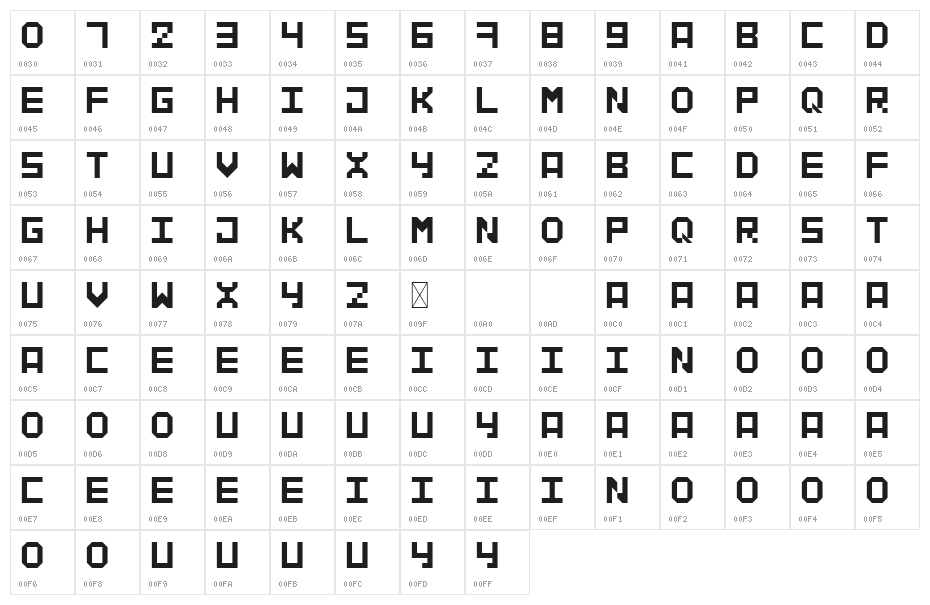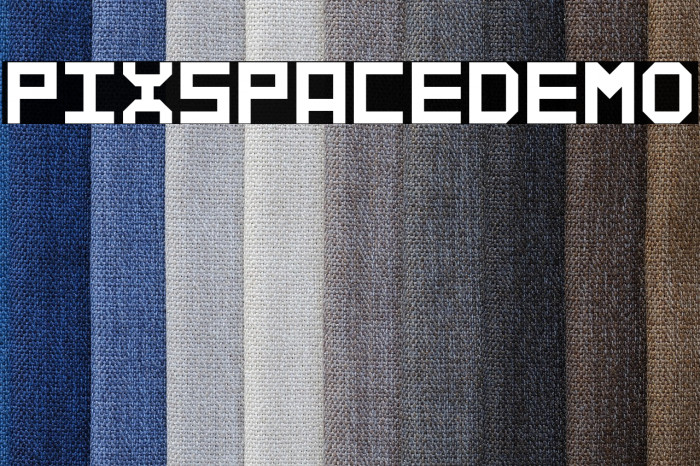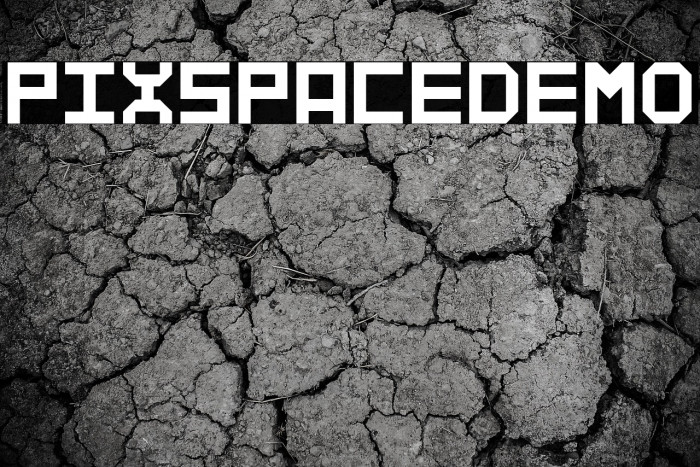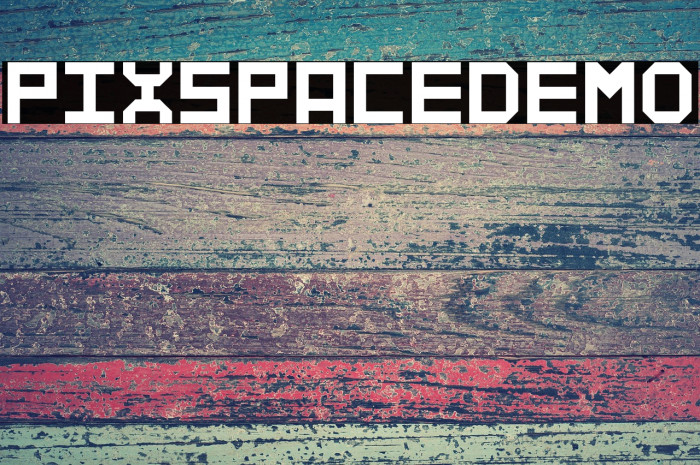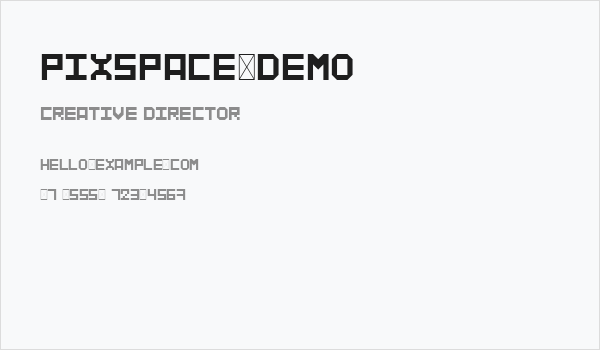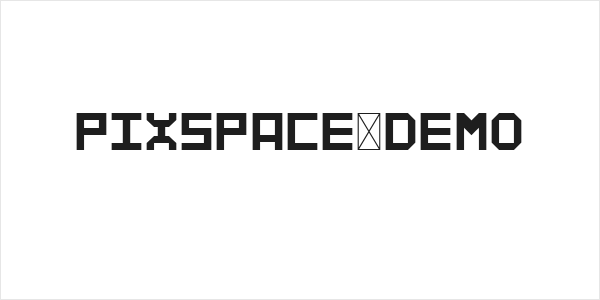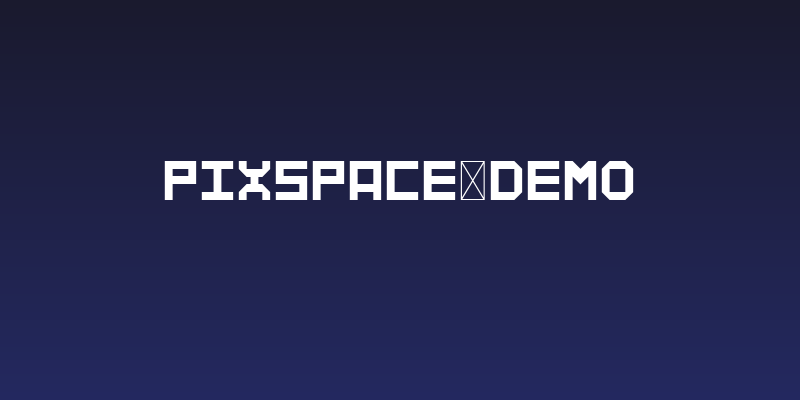
PIXSPACE-DEMO Font
PIXSPACE-DEMO Description
This font features a bold, geometric design with a distinctly modern and digital aesthetic. Each character is constructed with sharp angles and straight lines, giving it a pixelated appearance reminiscent of early digital displays or video games. The uniformity in stroke width across all characters contributes to a cohesive and structured look. Its blocky nature makes it highly legible at various sizes, though it is particularly striking in larger formats. The font's unique style is both futuristic and retro, making it versatile for creative projects that aim to capture a tech-savvy or nostalgic vibe.
| Proposed Projects | Ideal for video game graphics, tech-themed posters, digital art, and branding for technology companies. |